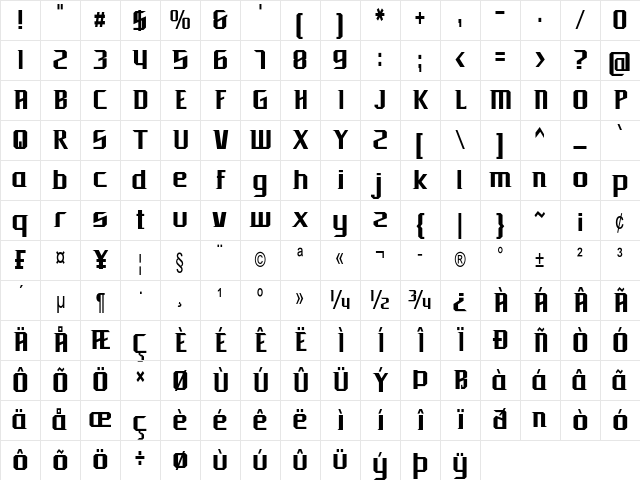
Grand Darvin Condensed Regular
Style: Condensed Regular
Grand Darvin Family
Grand Darvin Condensed Regular
Complete Grand Darvin Condensed Regular glyph index. Displaying only characters natively supported by Grand Darvin Condensed Regular font.
Design Context for Grand Darvin
Grand Darvin is a composed and adaptable typeface that performs quietly and consistently across a wide range of design contexts. Its narrow stance lets it pack a punch even in space-constrained designs.